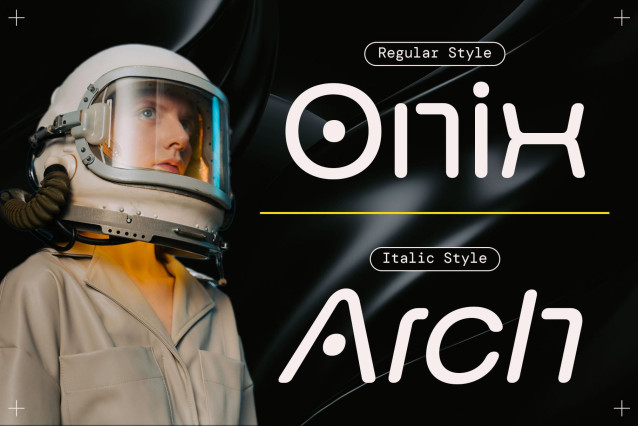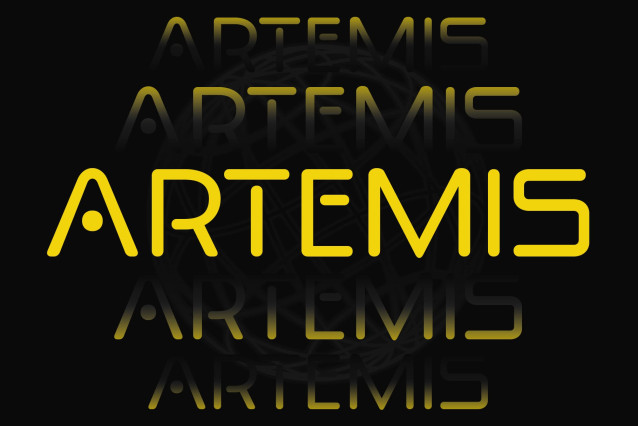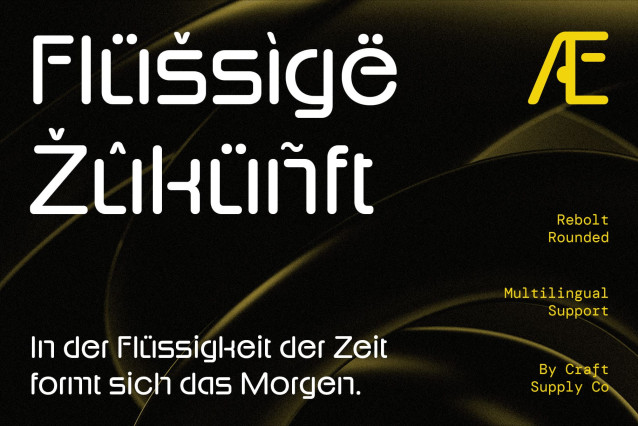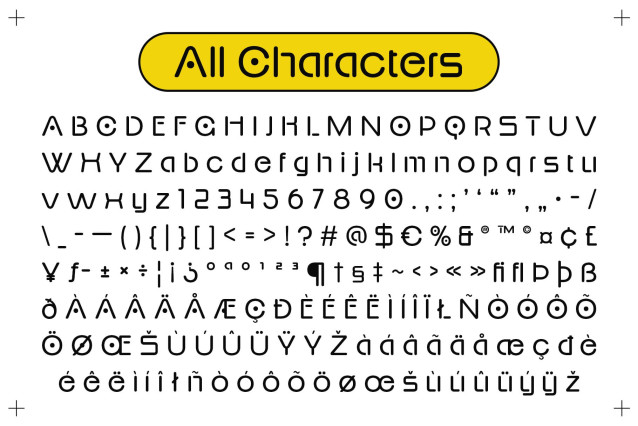
Rebolt Rounded Font
Rebolt Rounded Font – Future-Ready with a Human Touch
Tech-Inspired Modern Design
ReboltRounded is a modern sans serif font shaped by techno-futuristic influences, featuring clean, geometric letterforms that evoke innovation and clarity. Its structure reflects the language of digital design—precise, efficient, and forward-thinking—making it ideal for use in contemporary tech environments.